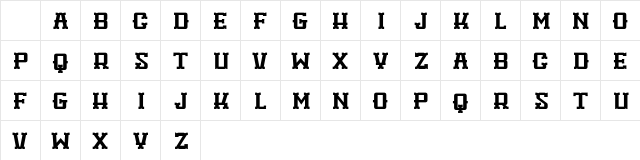
Woodshop echoes the hand-painted signage and woodblock typography of the American frontier, with a warm, rugged personality.
Font Pairing: Combine Woodshop with a simple slab or neutral sans - period-accurate companions reinforce the vintage feel without competing for attention.
Pro Tip: Use Woodshop for short, impactful bursts of text - it shines in poster headlines and product names rather than extended copy.